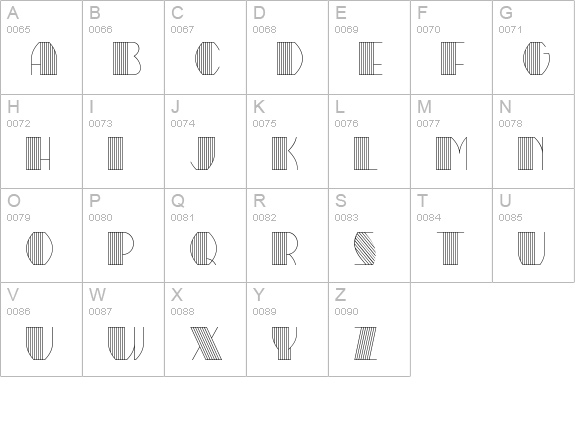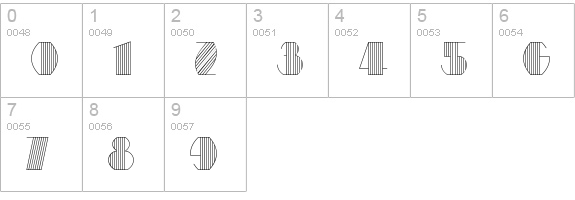
WhiteTieAffairNF is a captivating and elegant font that exudes sophistication and grace. It is a perfect blend of modernity and classic design, making it suitable for a wide range of projects. The font features clean lines and sharp edges, giving it a refined and polished look. With its stylish and versatile nature, WhiteTieAffairNF is ideal for creating eye-catching logos, elegant branding materials, stunning invitations, and beautiful typography designs. Its unique character shapes and well-balanced letterforms make it a standout choice for any creative endeavor. One of the best things about WhiteTieAffairNF is that it is available for free download at FontsMarket.com. This means that you can enjoy the beauty and sophistication of this font without any cost. Whether you are a professional designer or a hobbyist, having access to such a high-quality font without having to spend a dime is truly a remarkable opportunity. So, if you are looking to add a touch of elegance and refinement to your projects, look no further than WhiteTieAffairNF. Download it for free at FontsMarket.com and let your creativity soar to new heights with this stunning font.